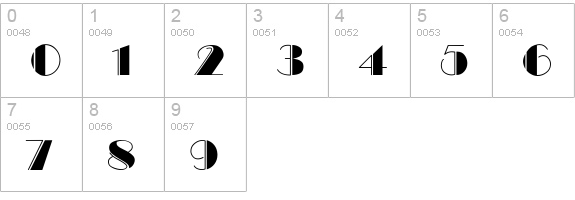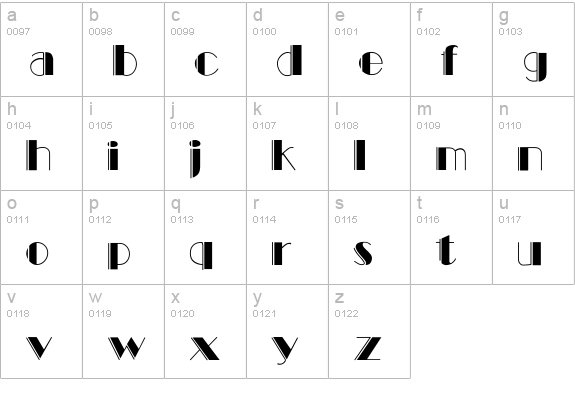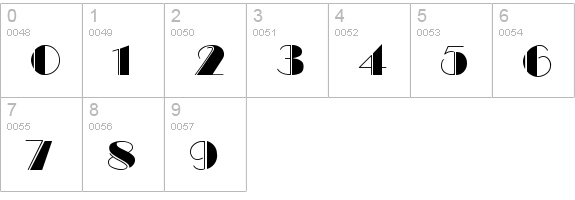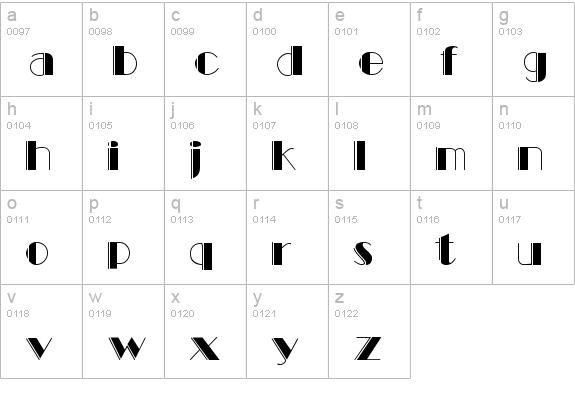
BalletEngraved Font Details
Introducing BalletEngraved font, a graceful and elegant typeface that embodies the beauty and sophistication of ballet. With its delicate lines and intricate details, this font is perfect for adding a touch of charm and refinement to your projects. BalletEngraved font is a versatile choice for a wide range of design applications, from invitations to branding to packaging. Its timeless aesthetic exudes a sense of class and sophistication, making it perfect for projects that require a touch of elegance. Best of all, BalletEngraved font is available for free download at FontsMarket.com. So whether you're a design enthusiast, a small business owner, or a professional designer, you can access this beautiful font at no cost. Don't miss out on the opportunity to elevate your designs with BalletEngraved font's timeless beauty and charm. Download it today and add a touch of sophistication to your projects!